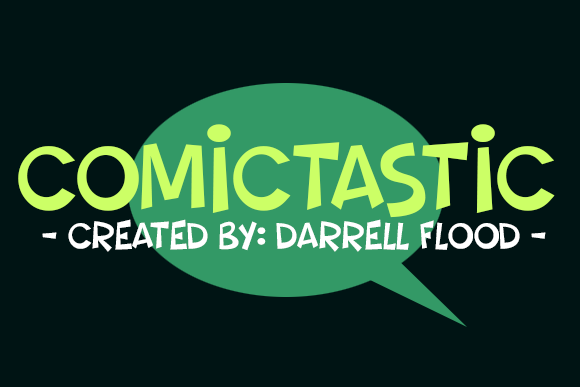
Comictastic Font
Journey into the world of Comictastic Font, a vibrant and captivating display font family that breathes life into your creative endeavors. Designed by the talented Darrell Flood, this font is an energetic and expressive comic style that will leave an unforgettable mark on your designs. Unleash your imagination and let the bold, playful characters of Comictastic Font add a layer of dynamic charm to your projects.
Comictastic Font is more than just a font; it's a gateway to a world of limitless storytelling. Its vibrant and expressive characters dance across the page, brimming with personality and energy. Whether you're creating eye-catching headlines, witty social media posts, or immersive comic book adventures, Comictastic Font will captivate your audience and leave them eagerly awaiting your next creation.
Dive into the boundless possibilities of Comictastic Font and let your imagination run wild. Its bold and playful nature makes it the perfect choice for creating logos, posters, and flyers that demand attention. Infuse your branding with a touch of whimsy and watch as your designs take on a life of their own. Comictastic Font isn't just a font; it's an experience that will transform your creative vision into reality.
With Comictastic Font, the possibilities are endless. Its energetic and expressive style lends itself effortlessly to creating captivating social media posts, memes, and online content that will have your followers buzzing. Engage your audience with visually striking designs that ignite their imagination and leave them eagerly awaiting your next post.
But Comictastic Font doesn't stop there. Its versatility extends to the world of presentations, where it can transform dull slides into dynamic and engaging experiences. Let your ideas take center stage as Comictastic Font captivates your audience, leaving them enthralled by your message. Unleash your creativity and watch as your presentations come alive, leaving a lasting impression that will resonate long after the final slide.
In the realm of comic books and graphic novels, Comictastic Font reigns supreme. Its bold and expressive characters bring life to the pages, immersing readers in a world of adventure and wonder. Create captivating comic panels that transport your readers to distant lands, introduce unforgettable characters, and ignite their imaginations. With Comictastic Font, your comic creations will leap off the page and into the hearts of your readers.
Step into the world of Comictastic Font and embrace a new era of creative freedom. Its energetic and expressive style will infuse your projects with a touch of whimsy and playfulness, captivating your audience and leaving them eagerly anticipating your next creation. Let Comictastic Font be your artistic partner, guiding you on a journey of limitless storytelling and design excellence.